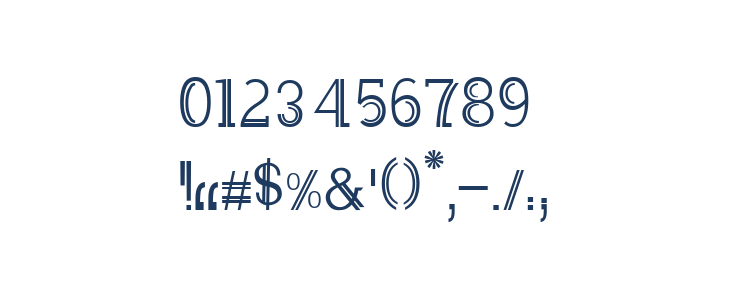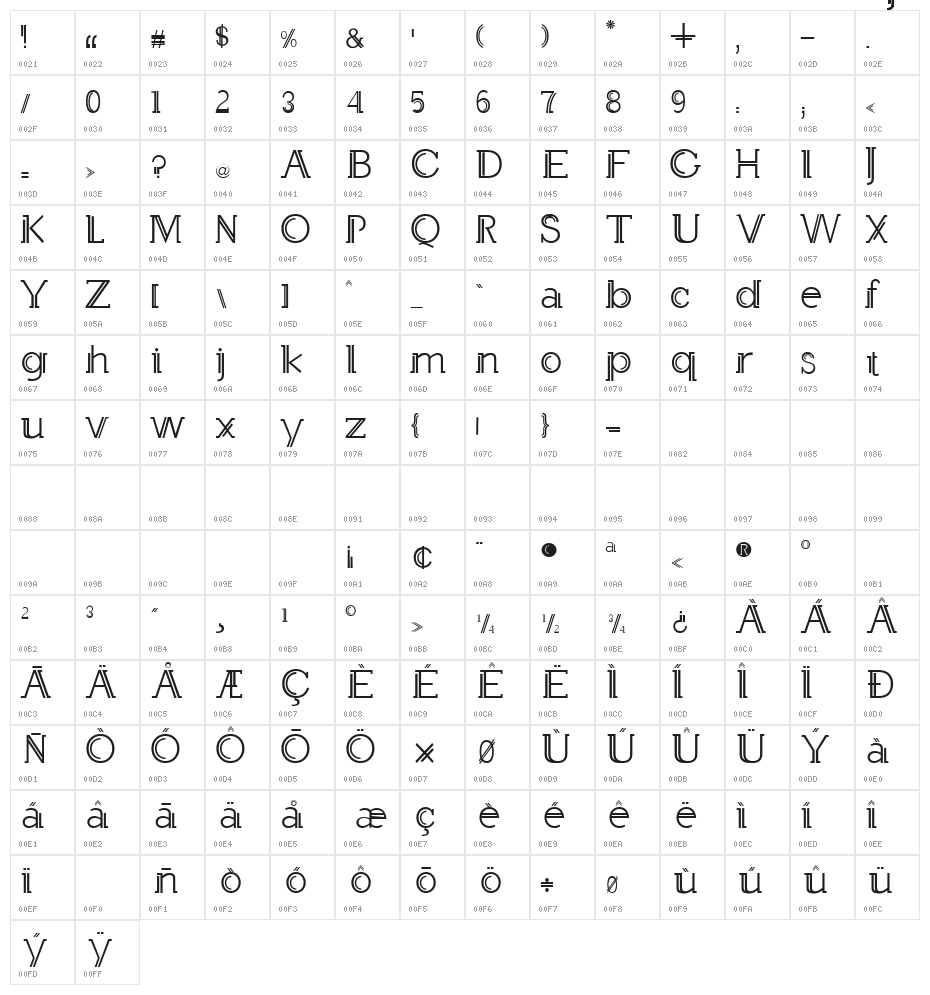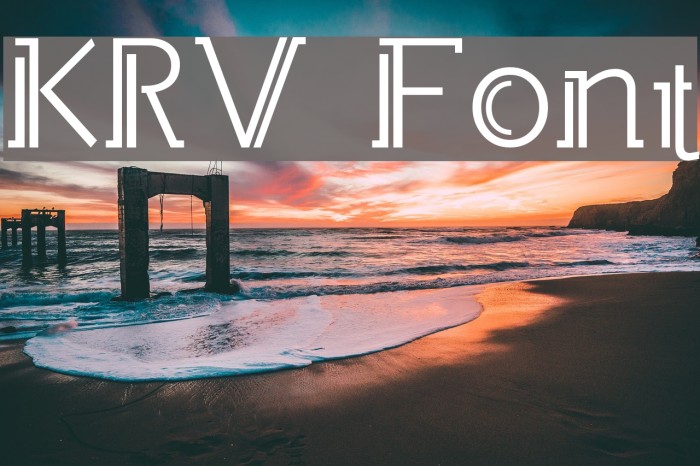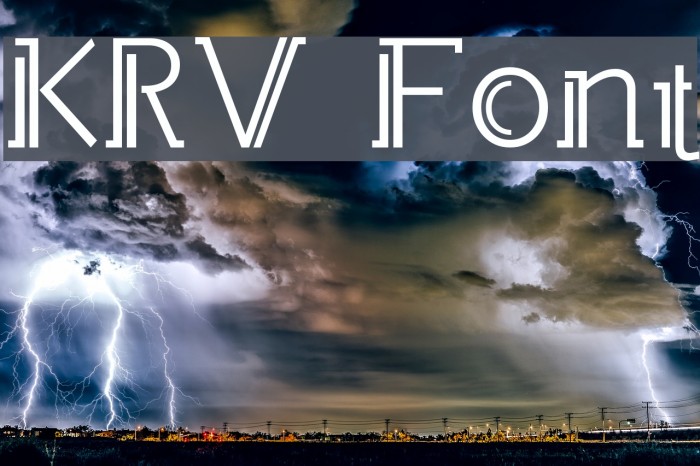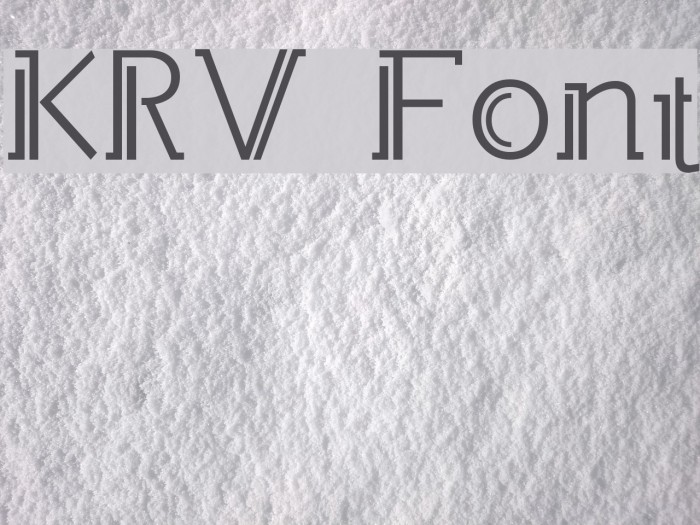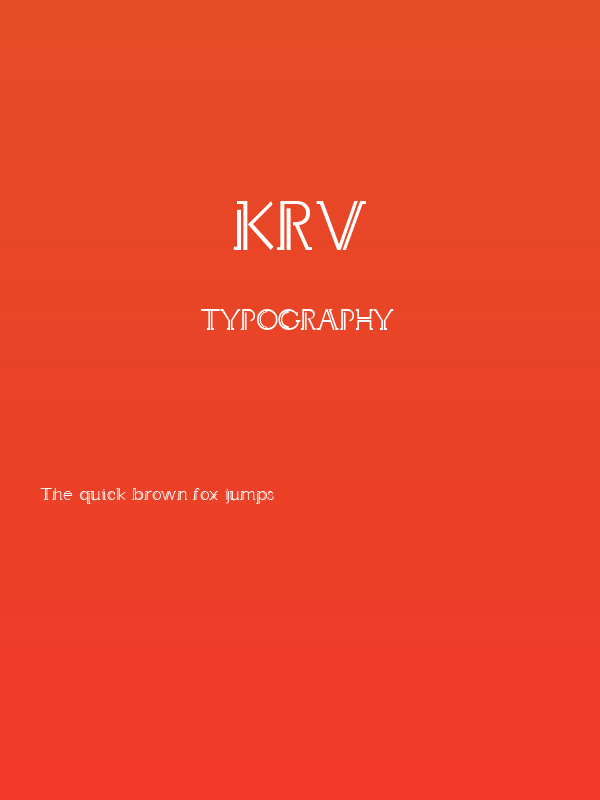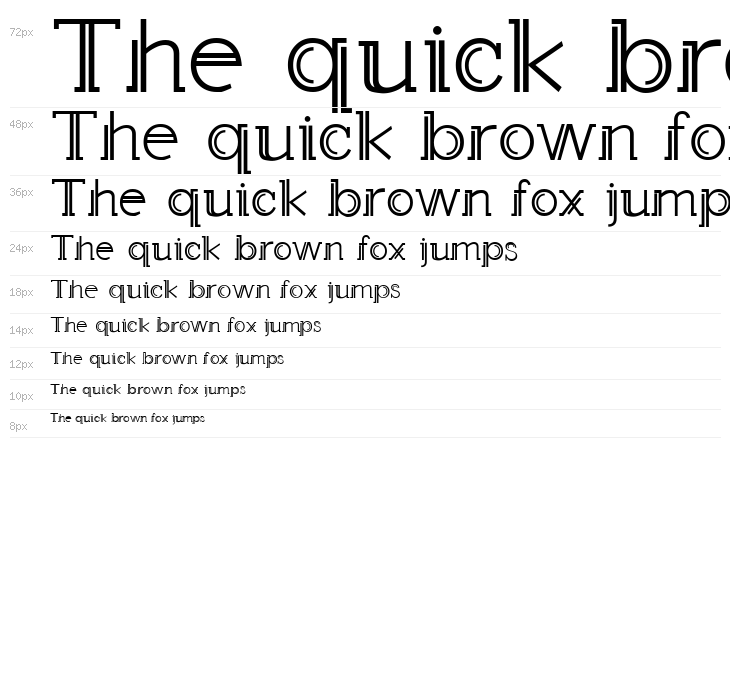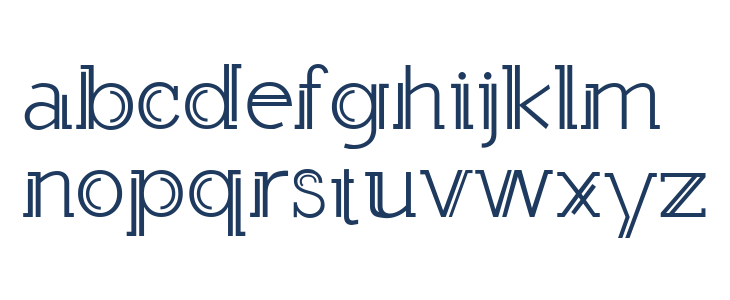
KRV Font
KRV Description
This font features a modern and sleek design with a geometric structure. The characters are clean and minimalistic, with a consistent stroke width that gives it a uniform appearance. The uppercase letters are bold and commanding, while the lowercase letters maintain a balanced and approachable look. The numerals are clear and easy to read, making them suitable for various applications. Special characters are well-integrated, maintaining the overall aesthetic of the font. The design is versatile, making it suitable for both digital and print media.